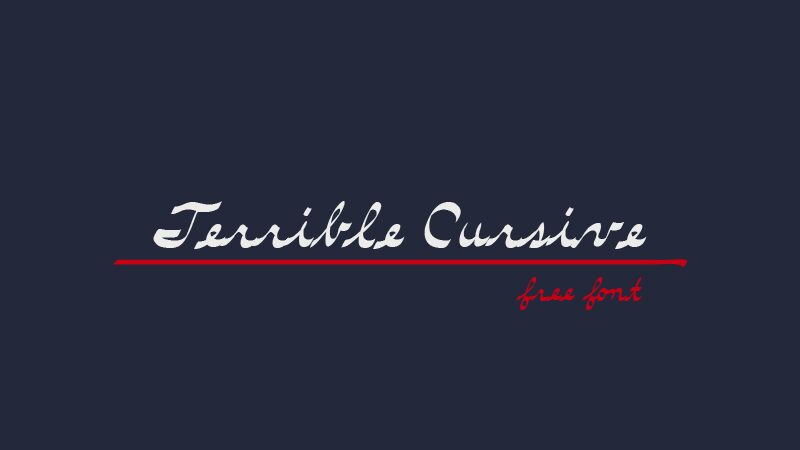
Terrible Cursive is a unique and eye-catching handwritten font designed by GGBotNet. Its semi-bold weight gives it a strong and dynamic presence, while its cursive style adds a touch of elegance and sophistication to any project. Perfect for use in branding, advertising, or social media graphics, Terrible Cursive can also be used in invitations, greeting cards, and other personal projects. Its versatility allows it to work with both modern and traditional design styles. With Terrible Cursive, you can add a personal touch to your designs while still maintaining a professional look.